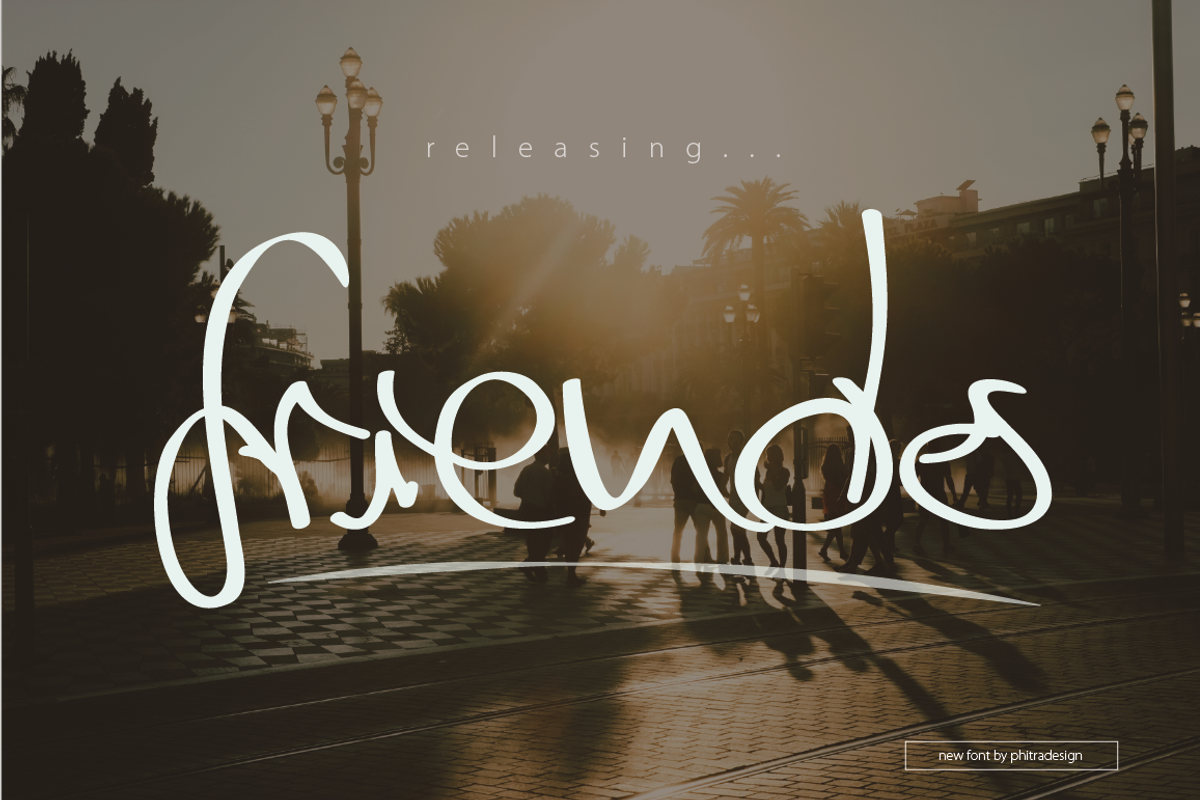
Friends Font Free Download is a playful, fun typeface inspired by the lively spirit of friendship. With rounded edges and a casual, hand-drawn look, this font is perfect for projects that need a warm, inviting, and cheerful feel. Ideal for logos, social media posts, posters, party invitations, and casual branding, Friends Font adds personality and charm to any design.
Its friendly style ensures that it works well for both children's projects and designs aimed at a more casual, fun-loving audience. Whether used in headings, body text, or for playful quotes, this font brings a joyful and approachable vibe to your work.